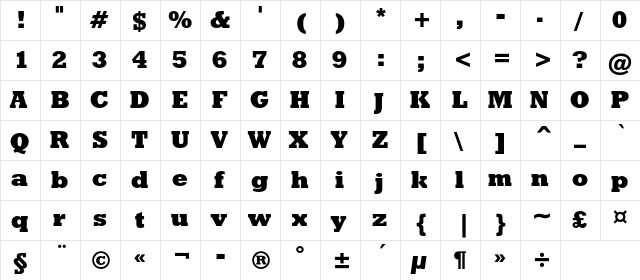
GeoSlb712XBC BT Regular
Design Context for GeoSlb712XBC BT Typeface
GeoSlb712XBC BT is a composed and adaptable typeface that performs quietly and consistently across a wide range of design contexts.